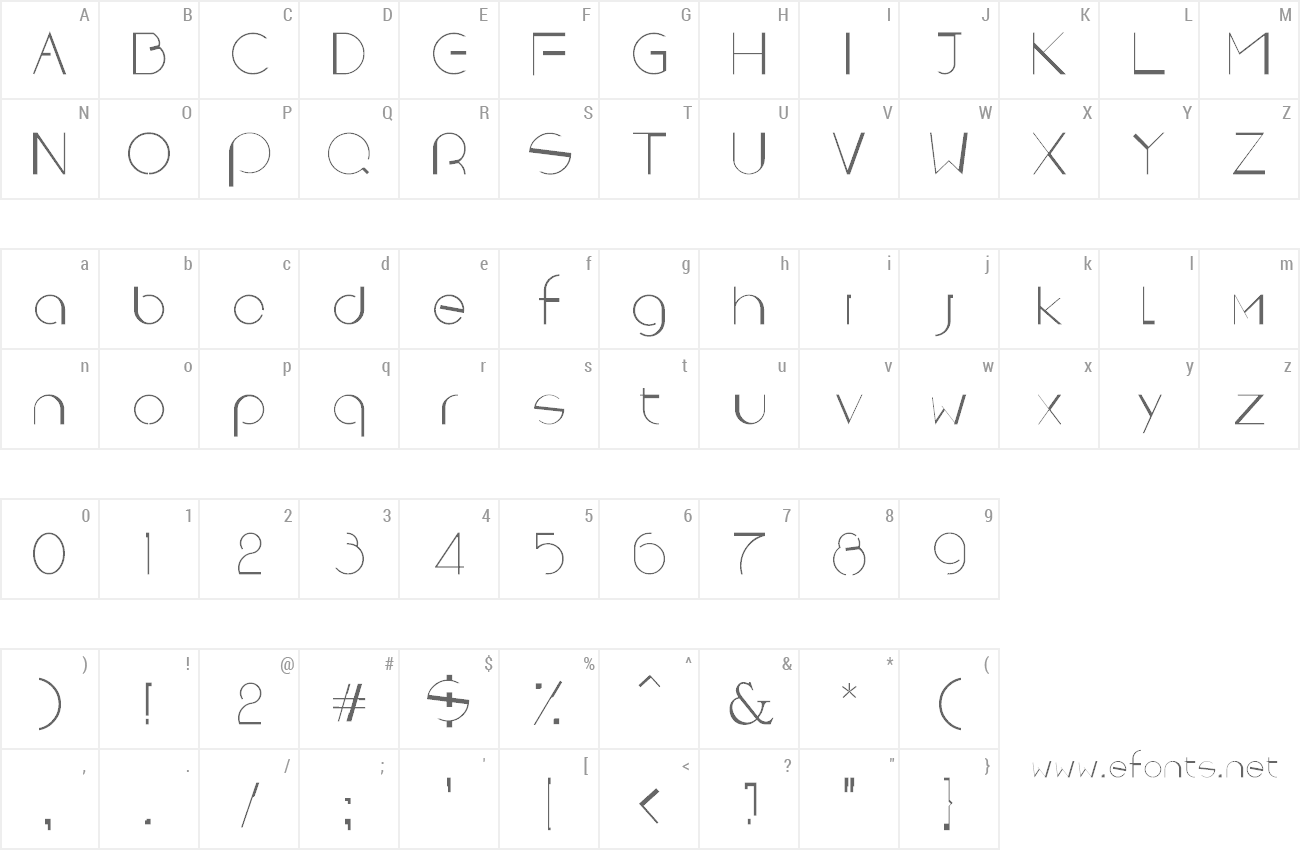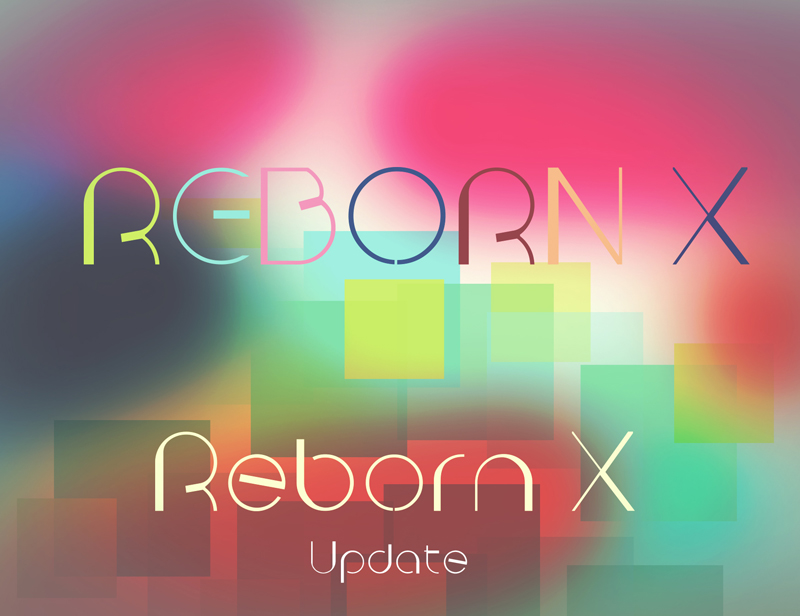
I have just started my design career!this is one of my new font which is going to replace my old font called Space1 created in 2011 when I was studying GD. All characters have been recreated and now are readable on screen. hope you guys will like it. I‘ll keep update more characters for this font within the next few weeks,if you have any good idea or suggest pls share with me. Free for personal use,to purchase the full font and a commercial license just sent me email Xinsdesign@gmail.com or just click the donation button(any donation over $1 I will sent the font to your email) A little bit donation will help me get my career started.Thanks. |